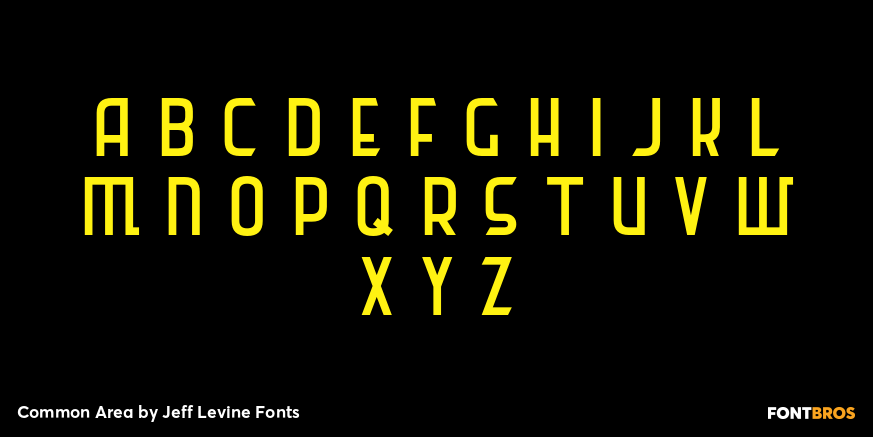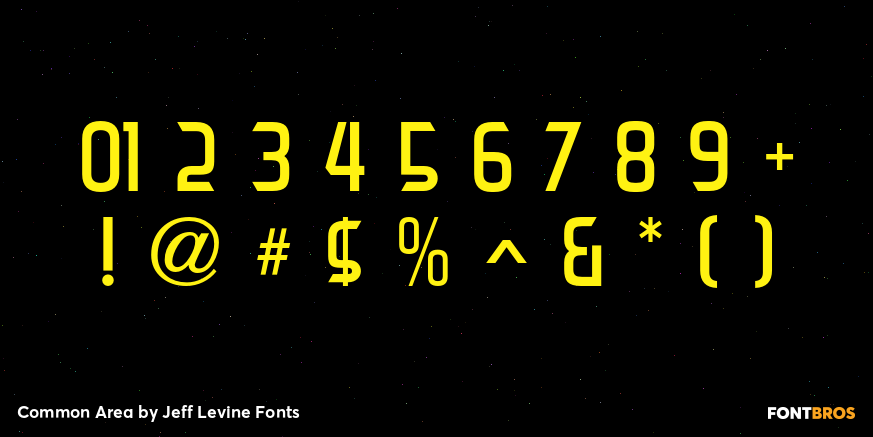
Common Area
The unusual hybrid of square letter forms mixed with Art Deco-influenced ones in the digital typeface Common Area JNL is brought to you by the hand lettering found on a vintage piece of sheet music for 'William Tell”.
The typeface is available in both regular and oblique versions.